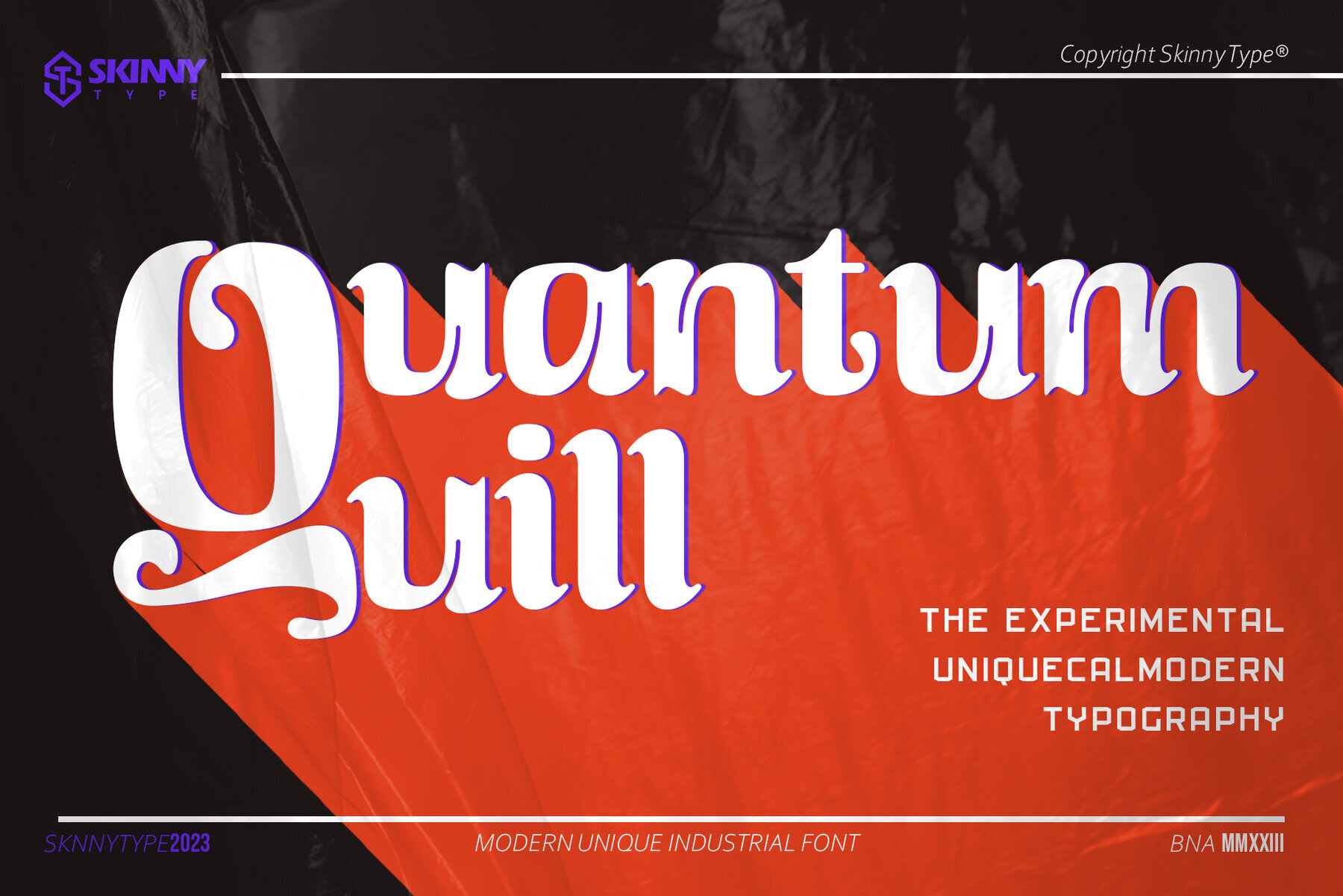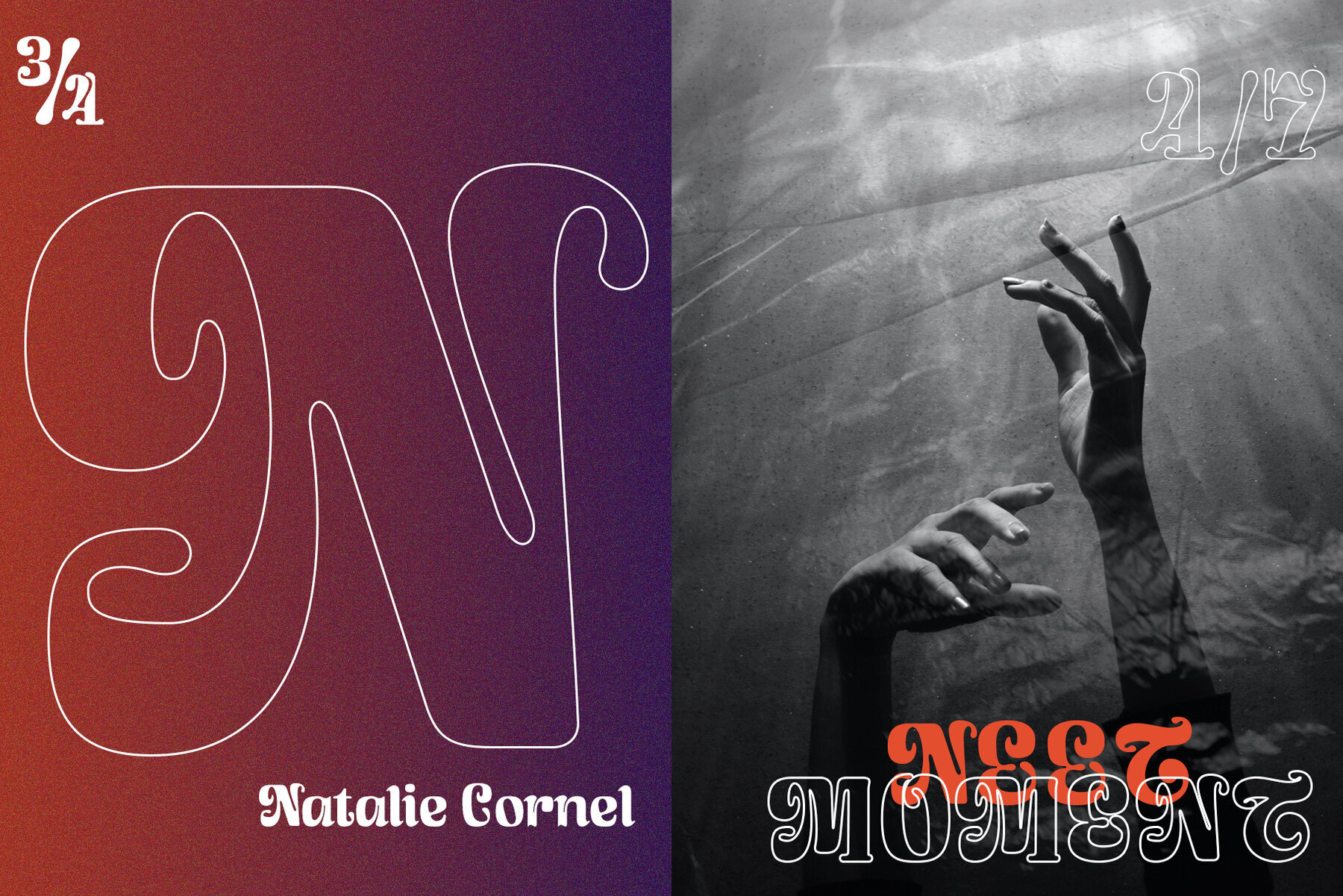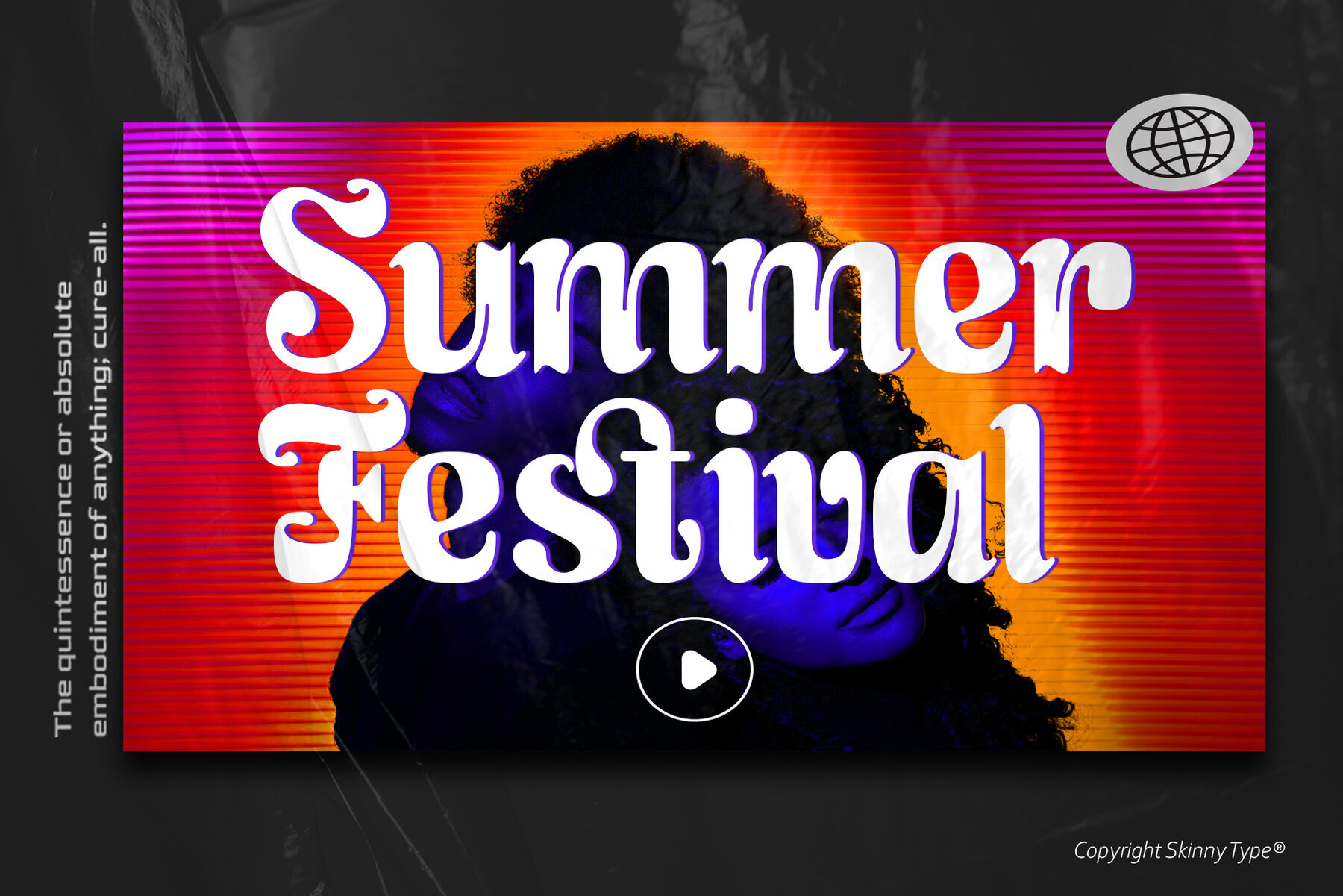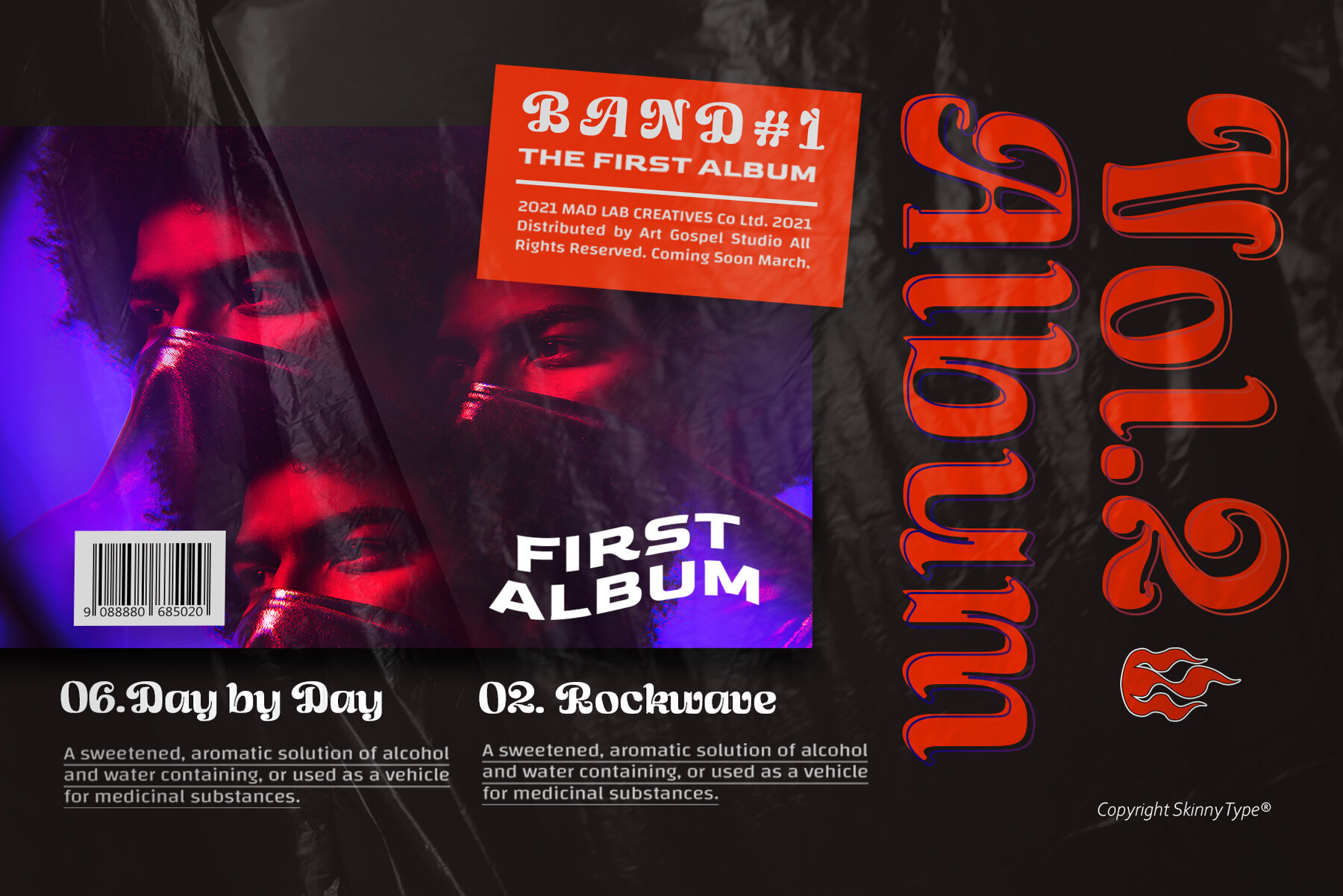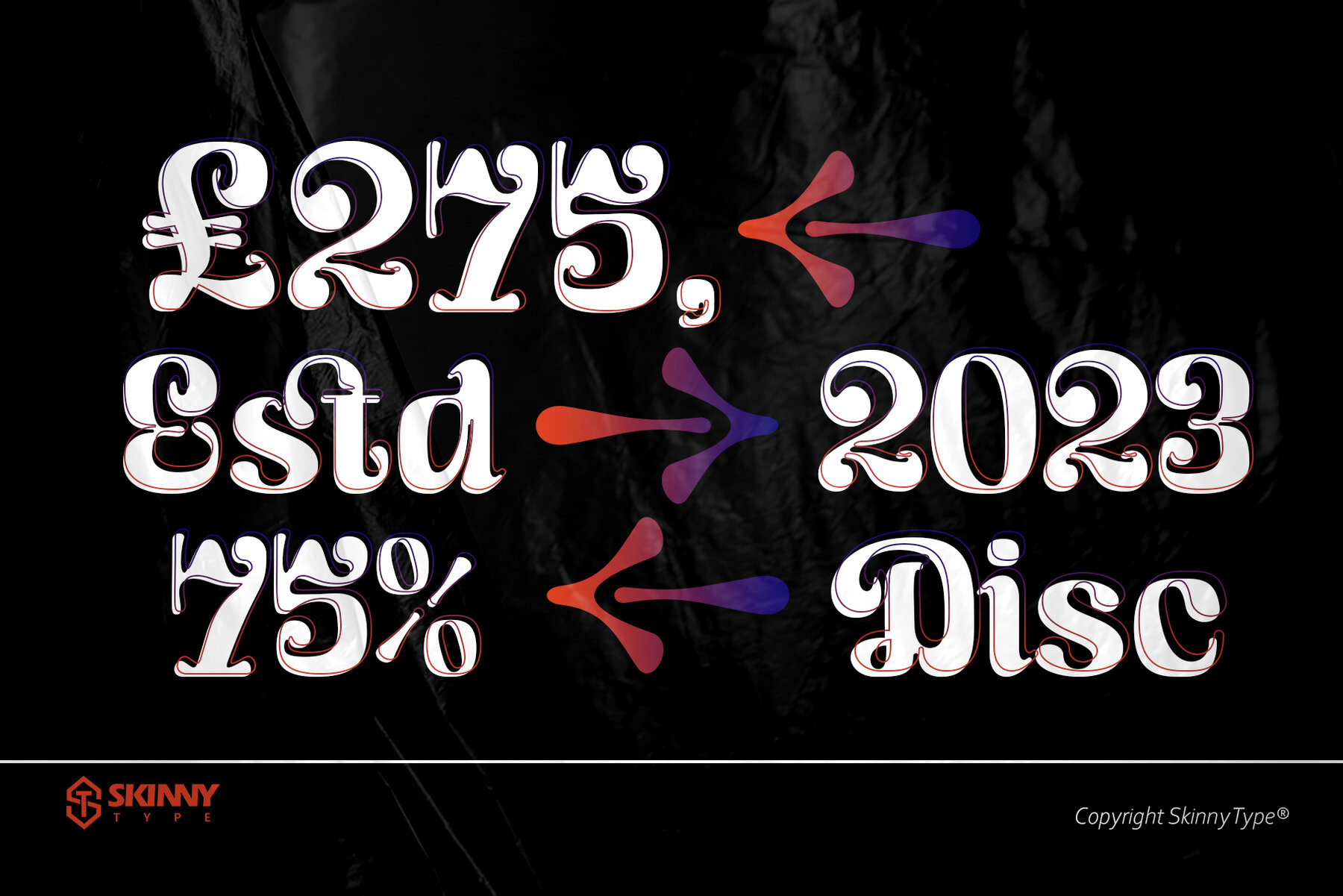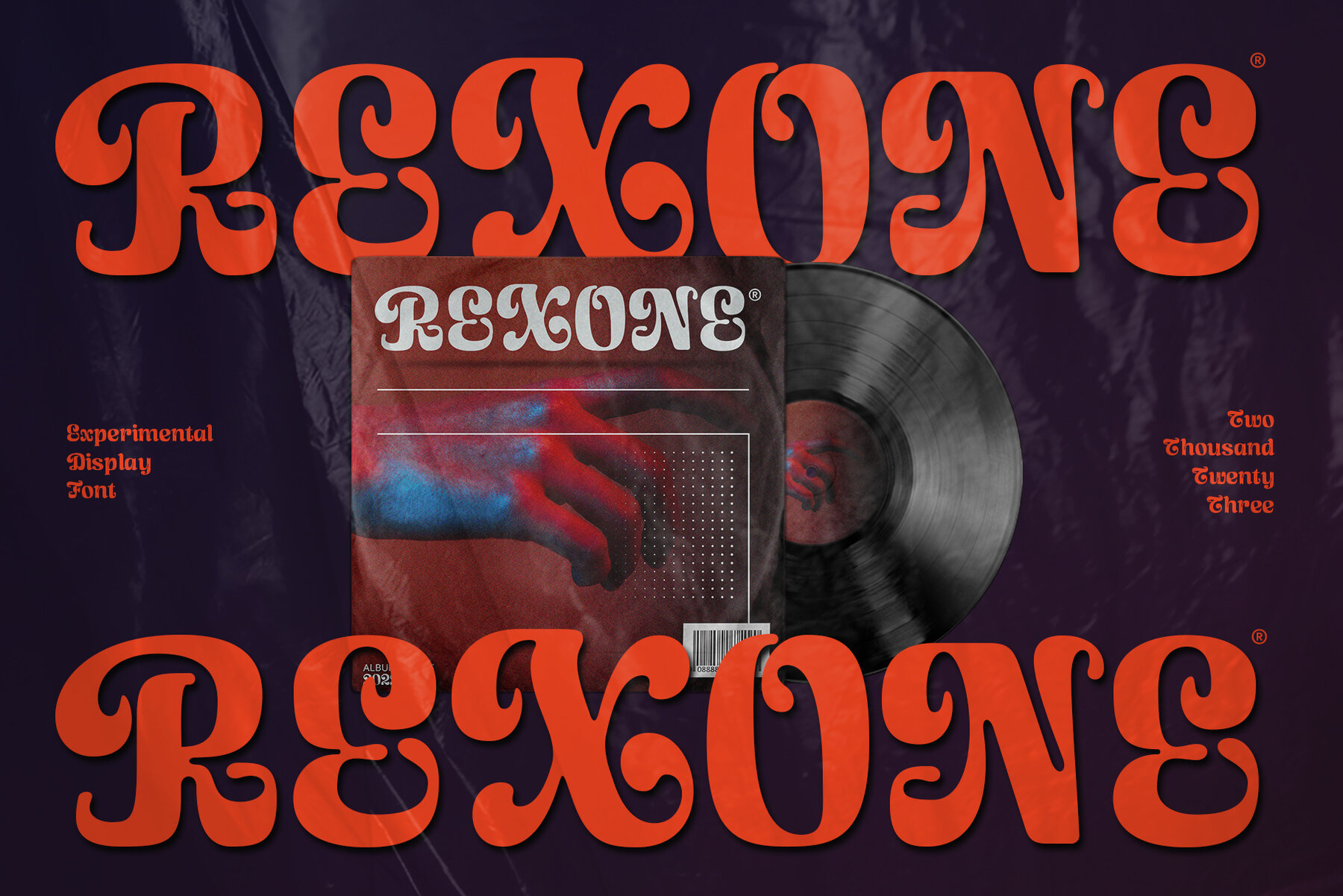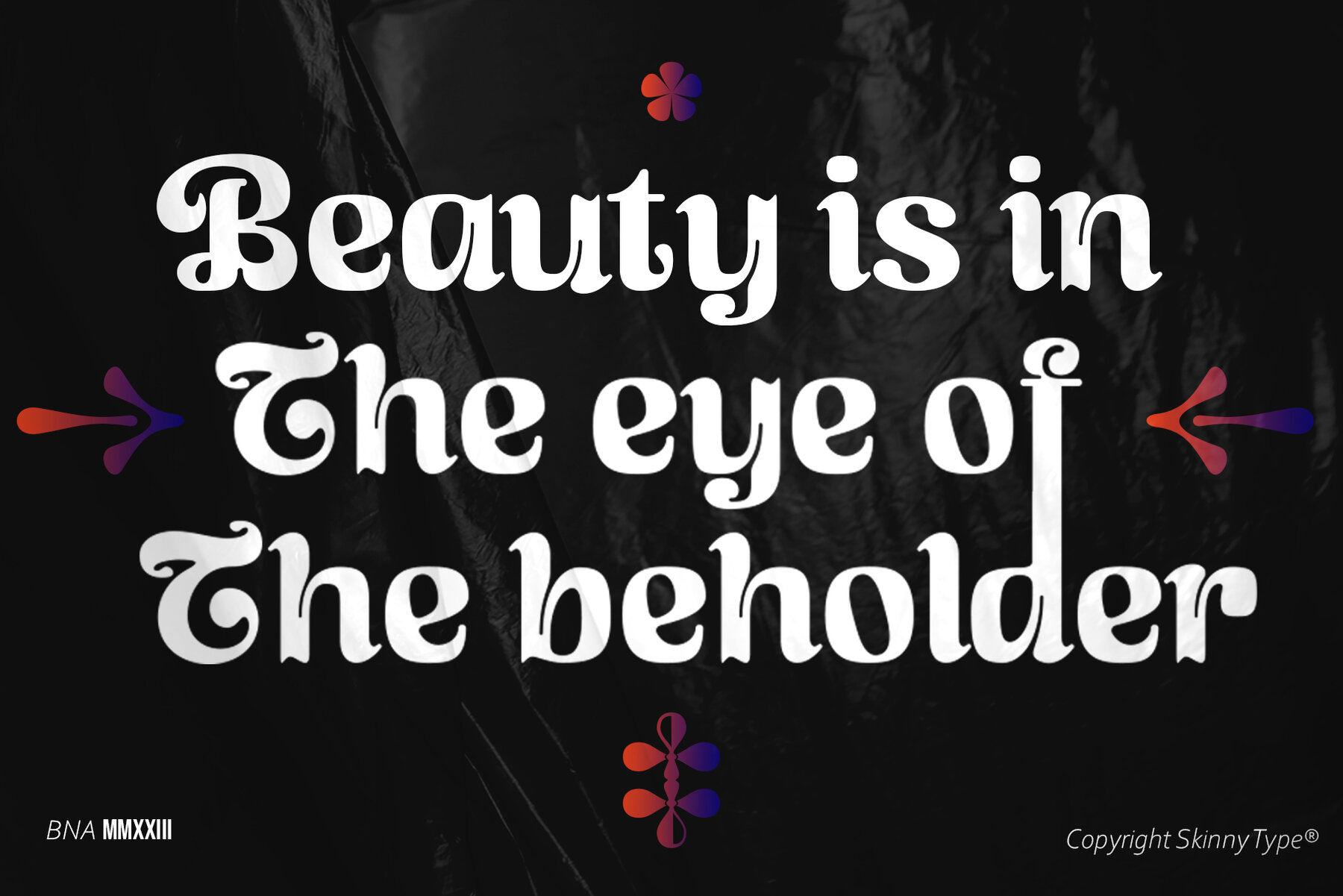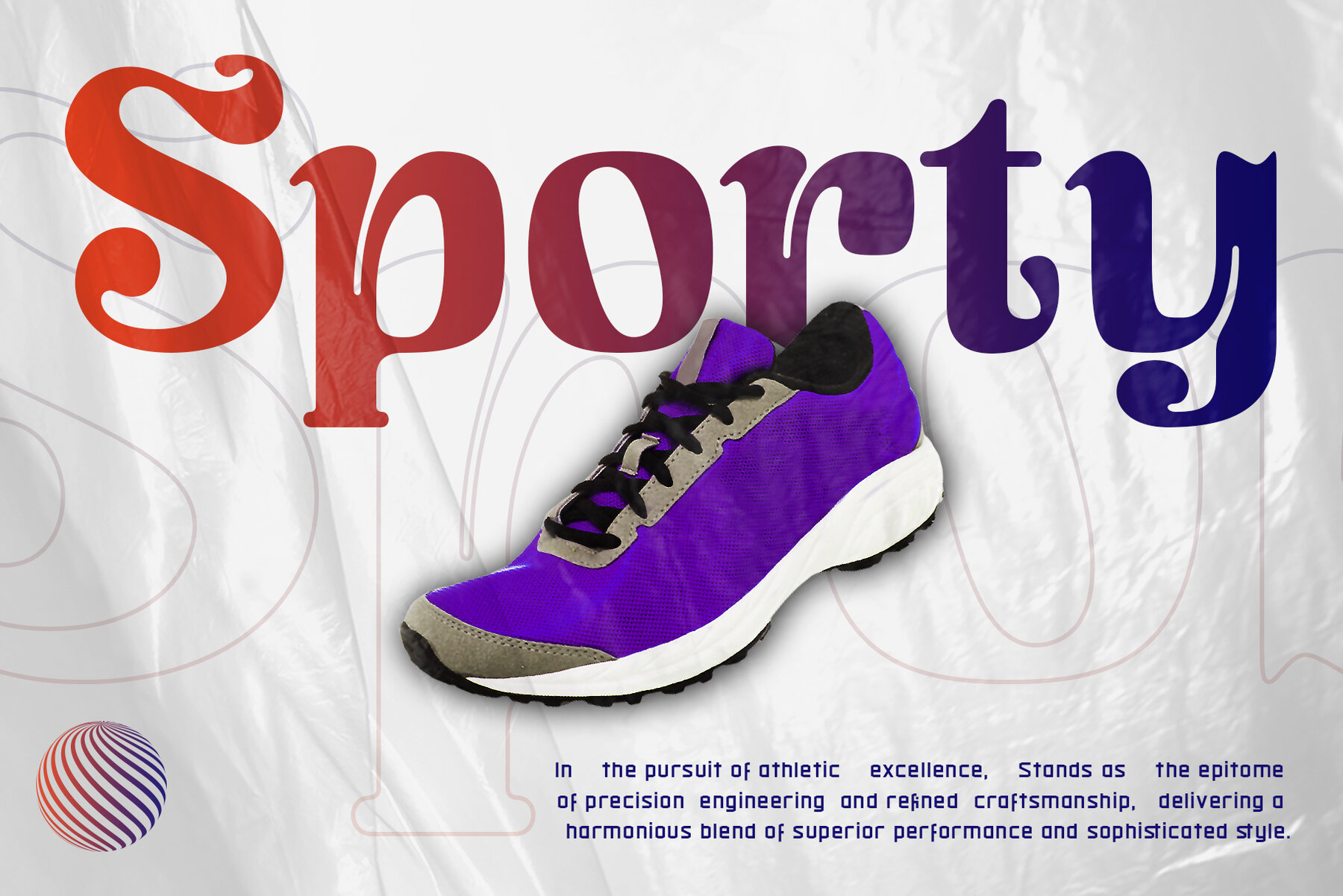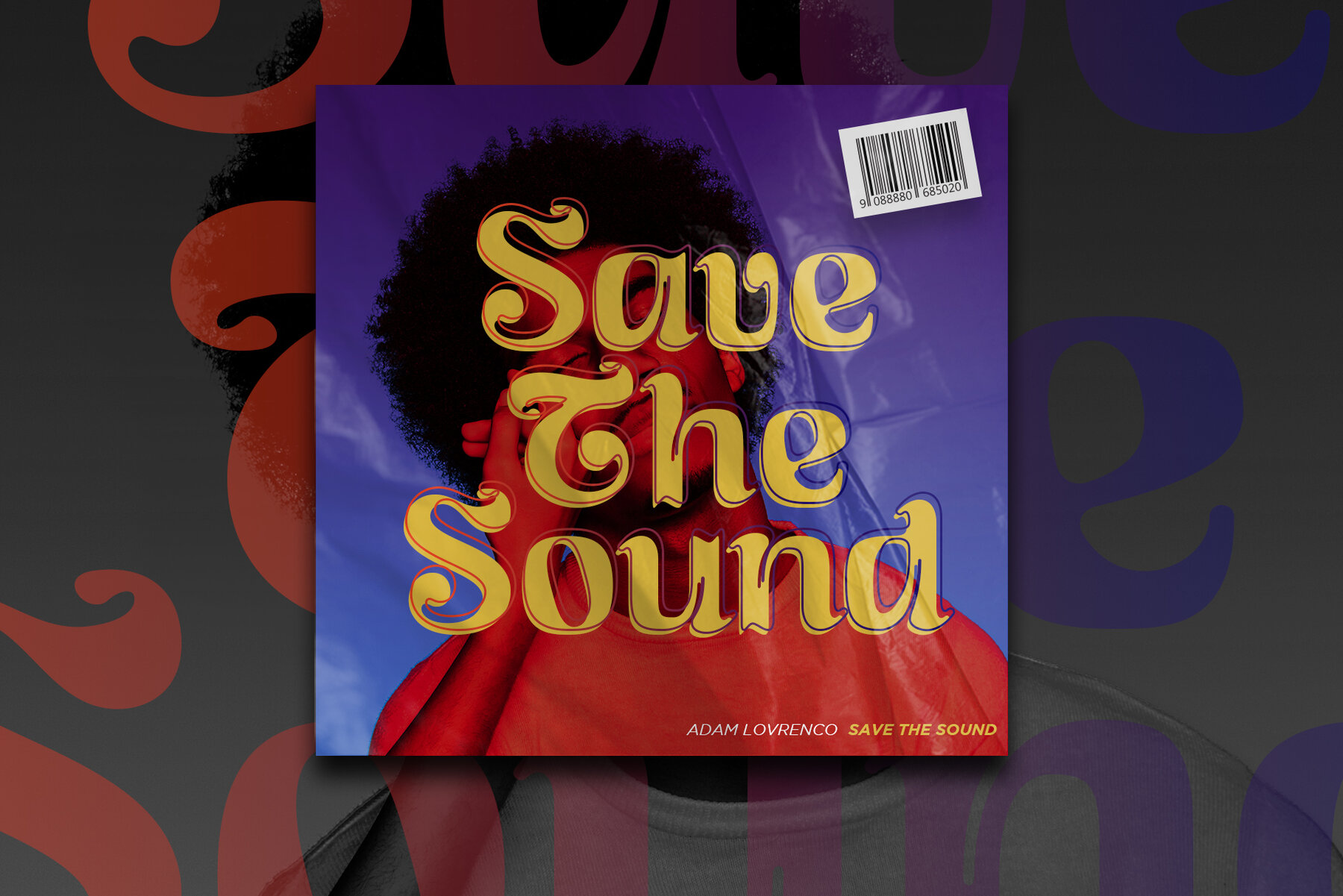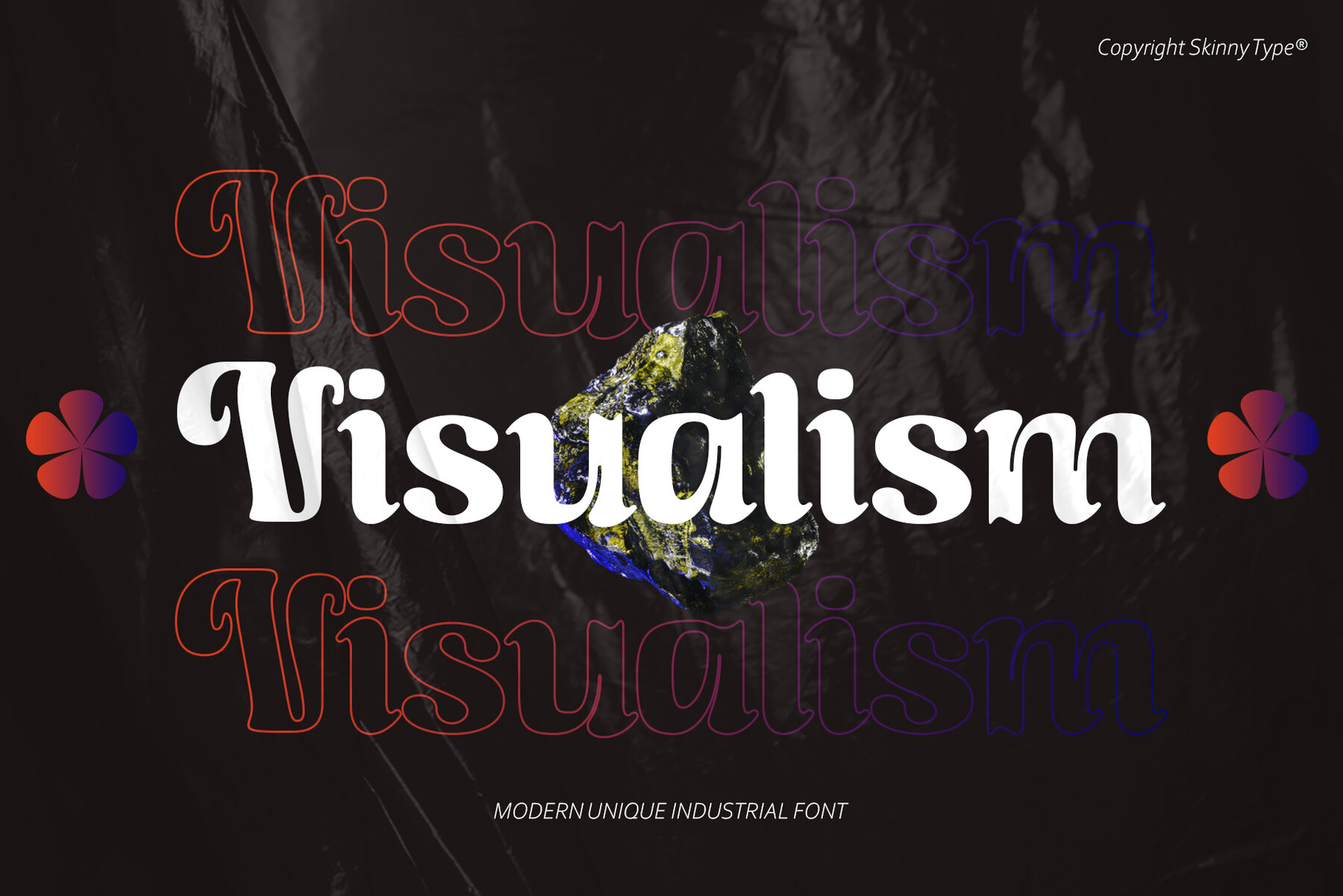
Quantum Quill Font
Quantum Quill Regular
Introducing Quantum Quill, a unique experimental display typeface characterized by its classic, clean design. Ideal for logos, titles, book covers, magazines, and more, Quantum Quill delivers thoughtful aesthetics and functionality in one package. Its versatile beauty is evident in various design contexts, adding a striking visual element to your projects.
Quantum Quill offers a range of features to enhance your designs, including beautiful numbers, punctuation, and kerning styles. Additionally, it supports multiple languages, making it an excellent choice for diverse applications. This typeface is perfect for those looking to add a distinctive and elegant flair to their design toolkit.